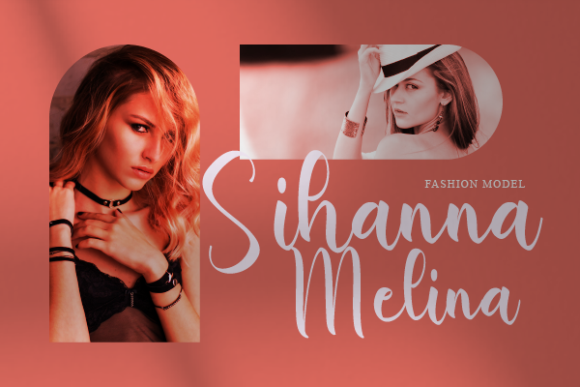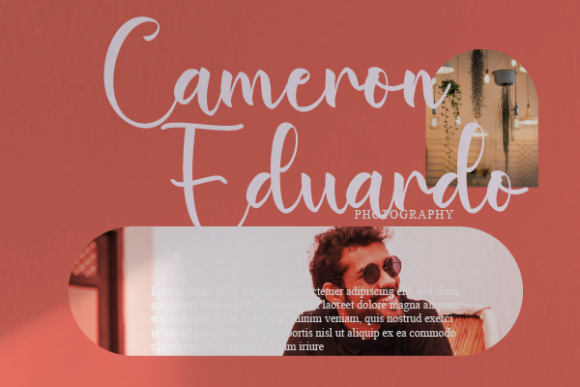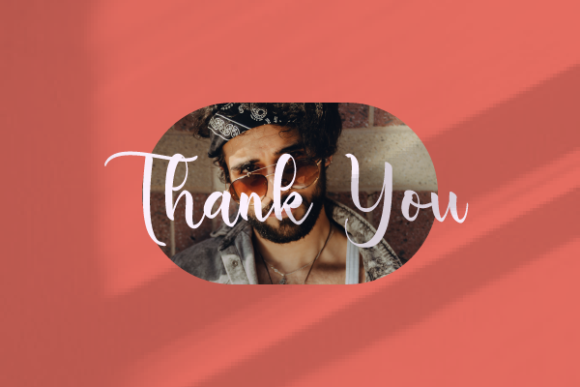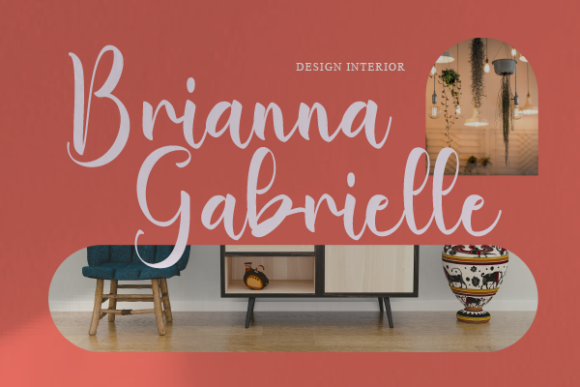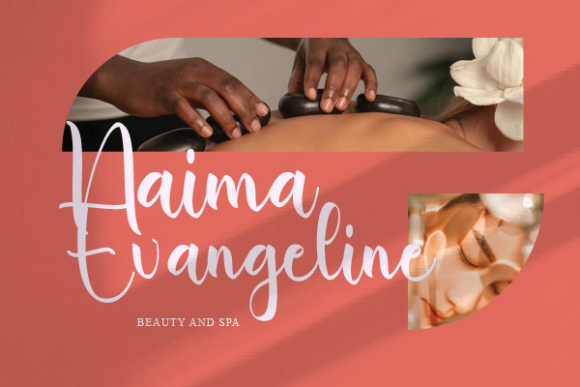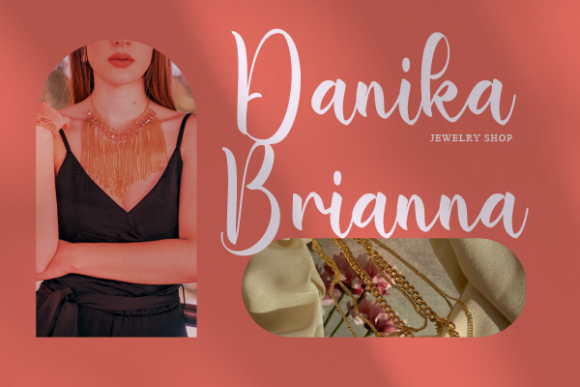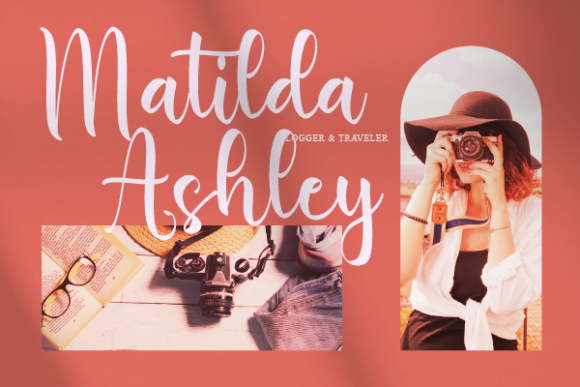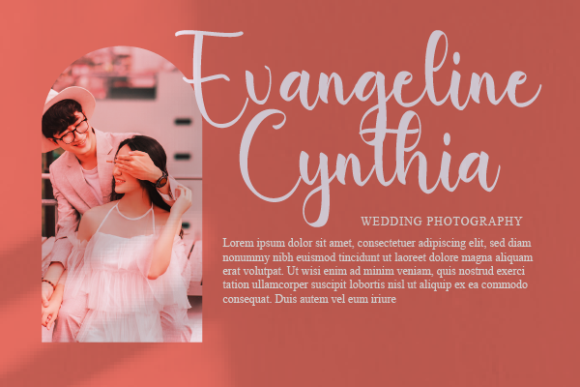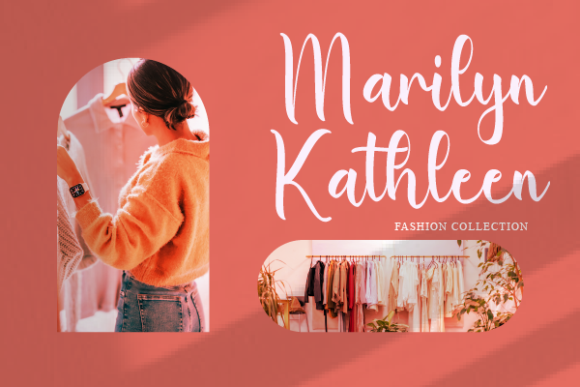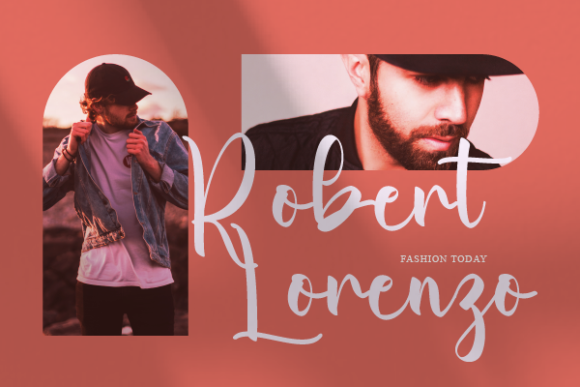
Kristina Gemma Font
About Kristina Gemma Font
Kristina Gemma is a beautiful and light handwritten font with a unique feel and a stunning impact. It will add a luxury spark to any design project that you wish to create!